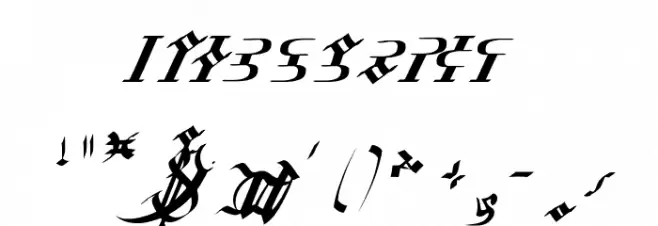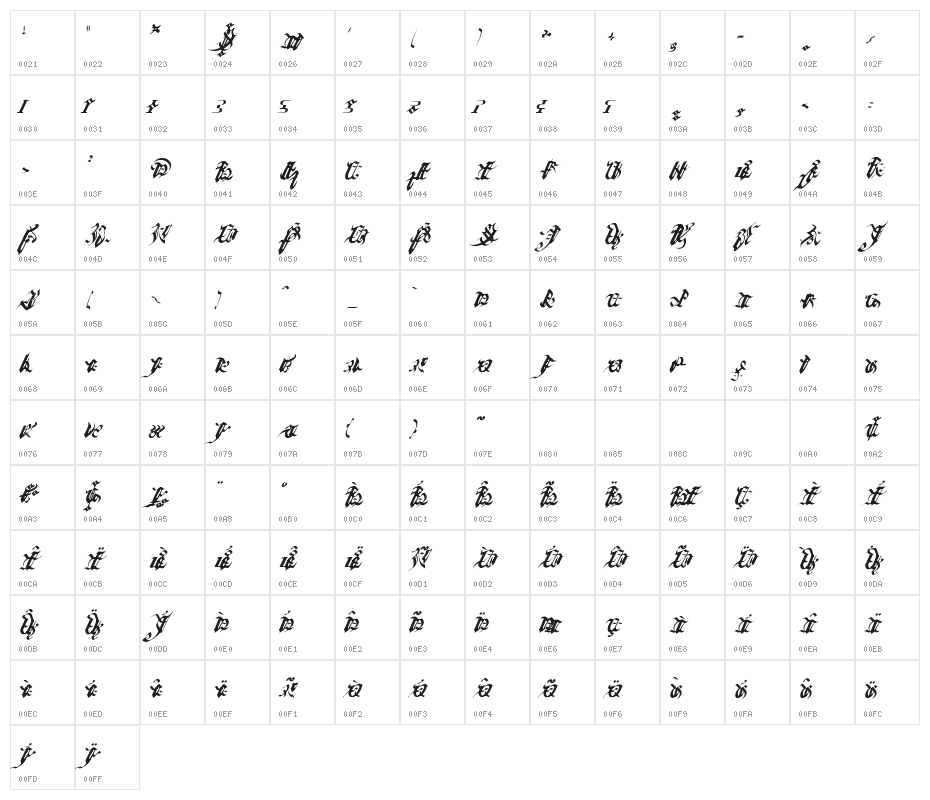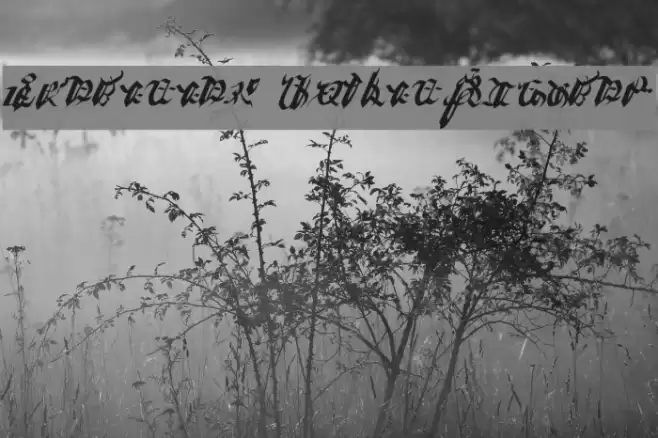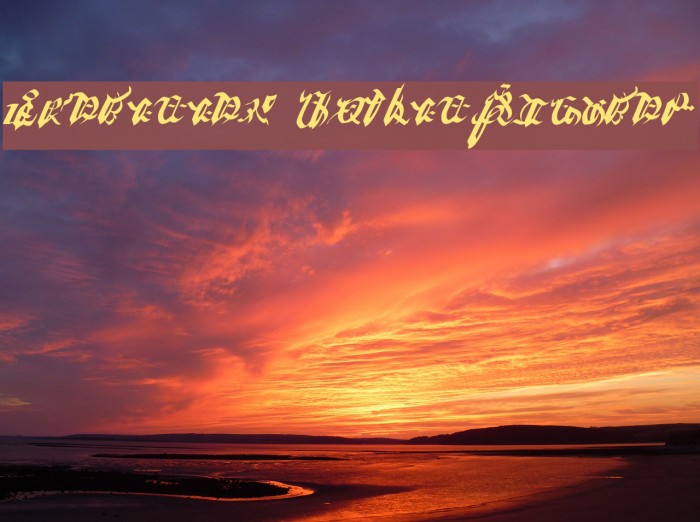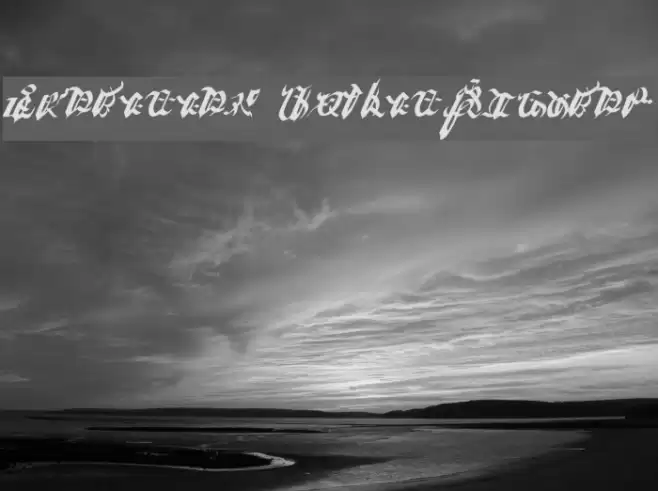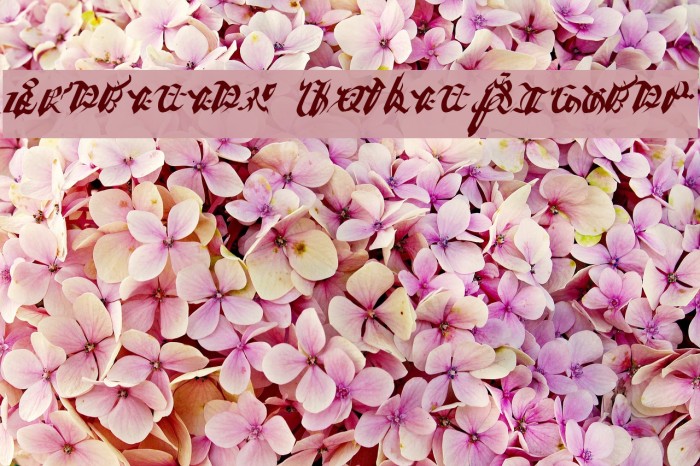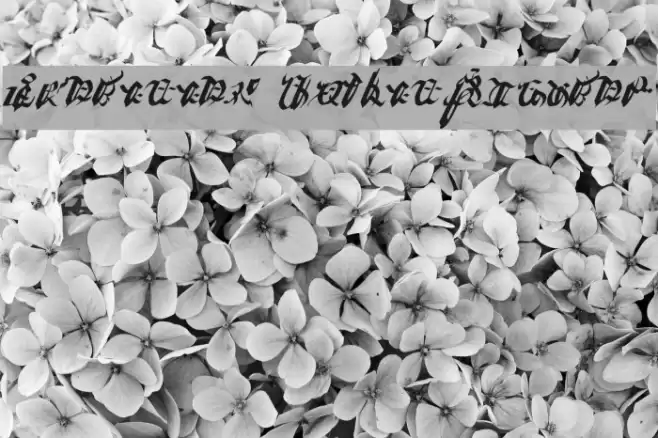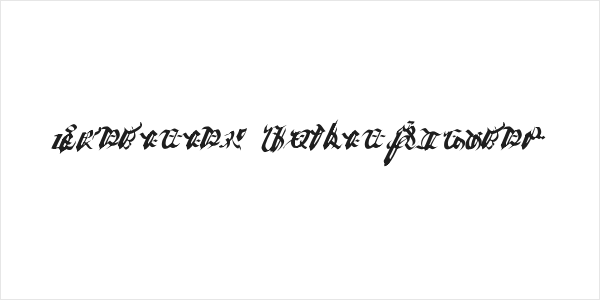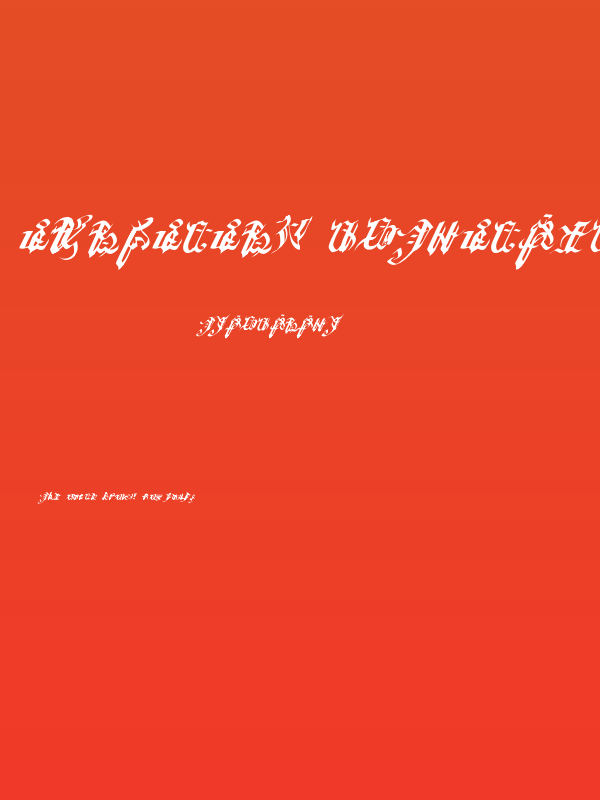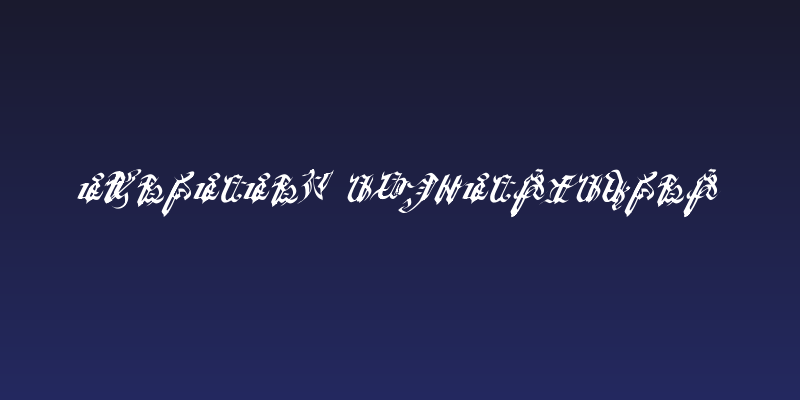
Ivalician GothicRegular Font
Ivalician GothicRegular Description
This font exudes a bold and dramatic presence with its intricate, gothic-inspired design. The characters are highly stylized, featuring sharp angles and elaborate flourishes that give it a distinct medieval feel. The uppercase letters are particularly ornate, with sweeping strokes and pointed serifs that create a sense of grandeur and elegance. The lowercase letters maintain the same level of detail, ensuring consistency throughout the typeface. The numbers and special characters are equally decorative, making this font suitable for projects that require a touch of historical or fantasy-themed aesthetics.
| Proposed Projects | Ideal for fantasy-themed designs, historical event posters, book covers, and video game graphics. |